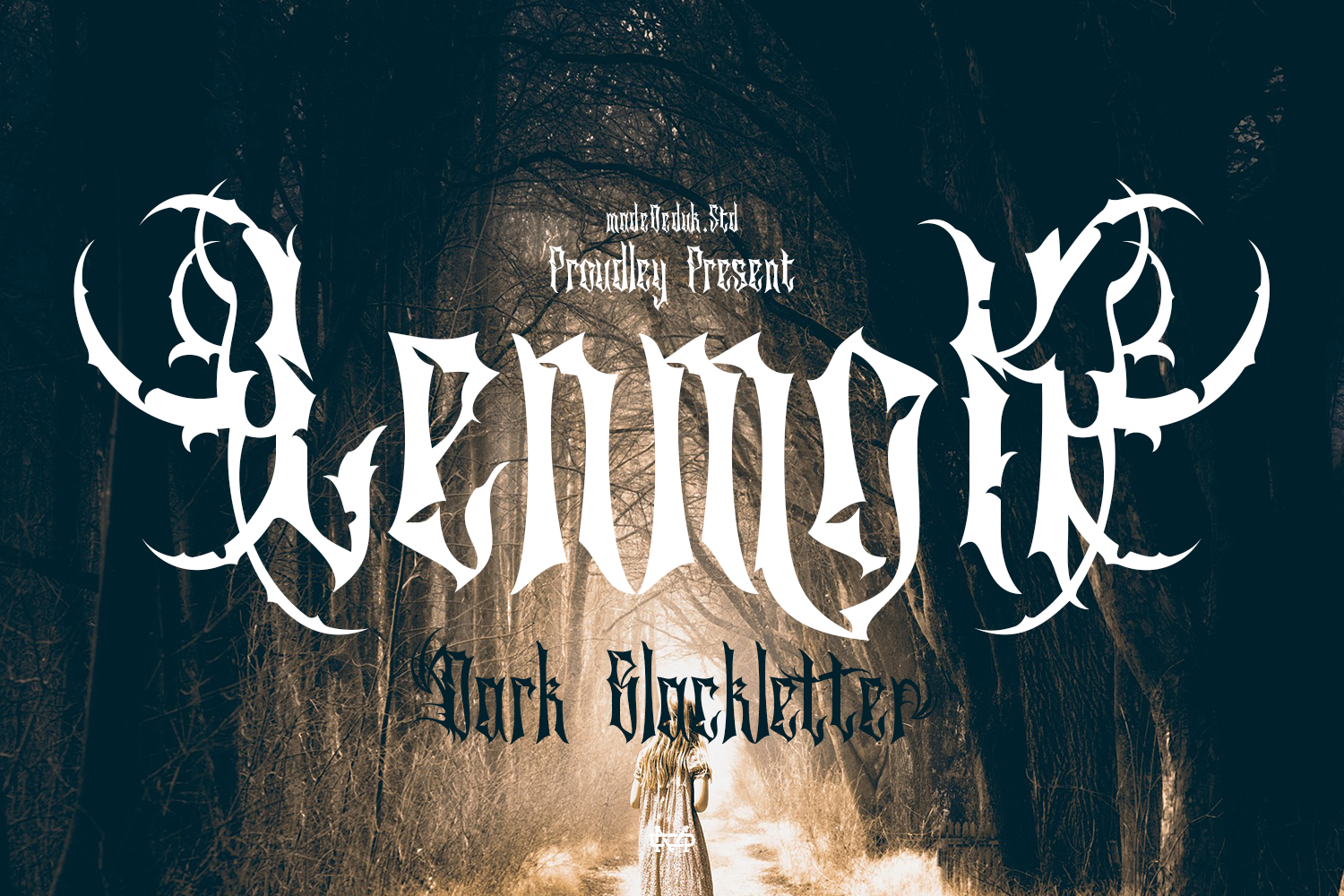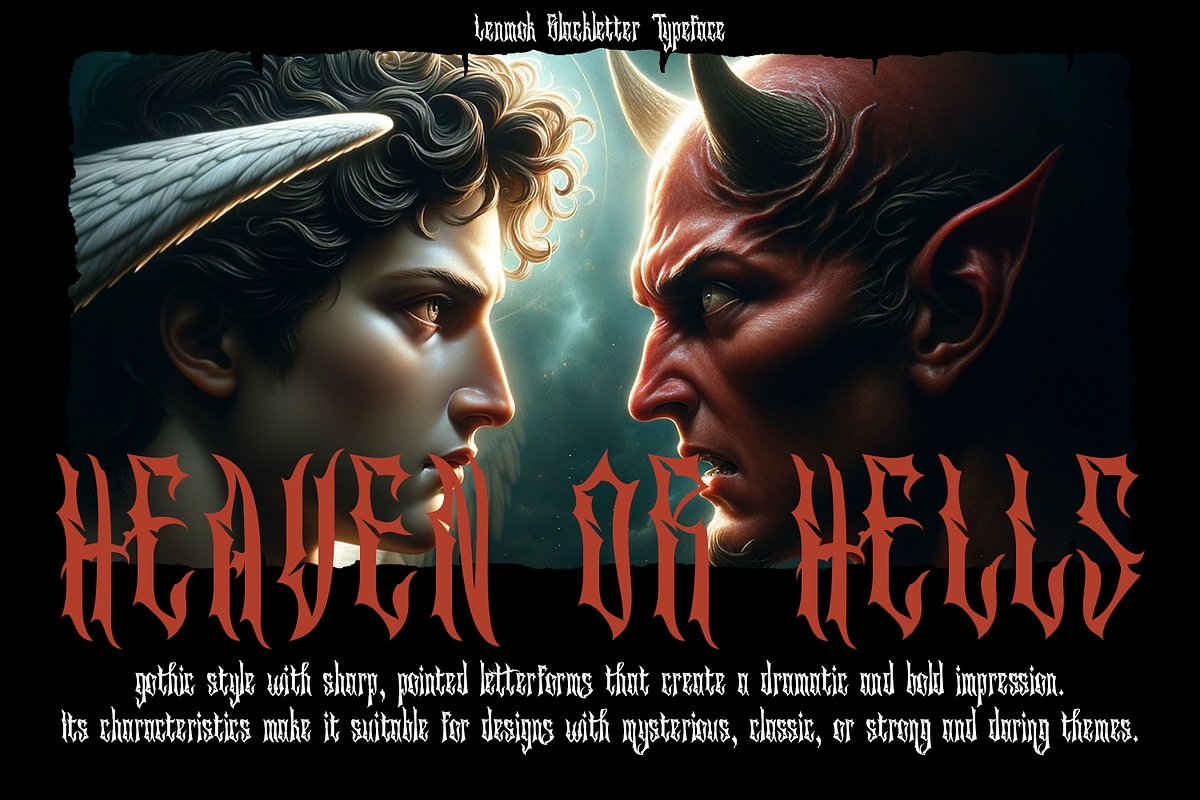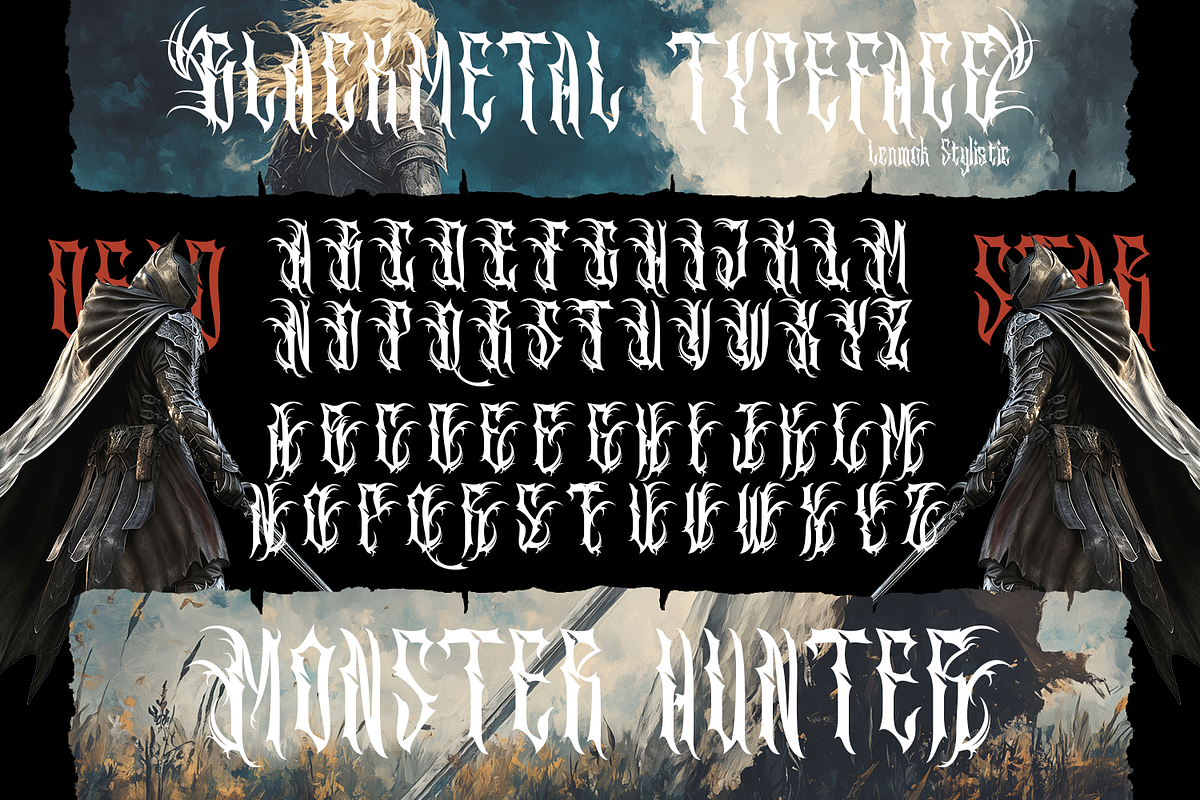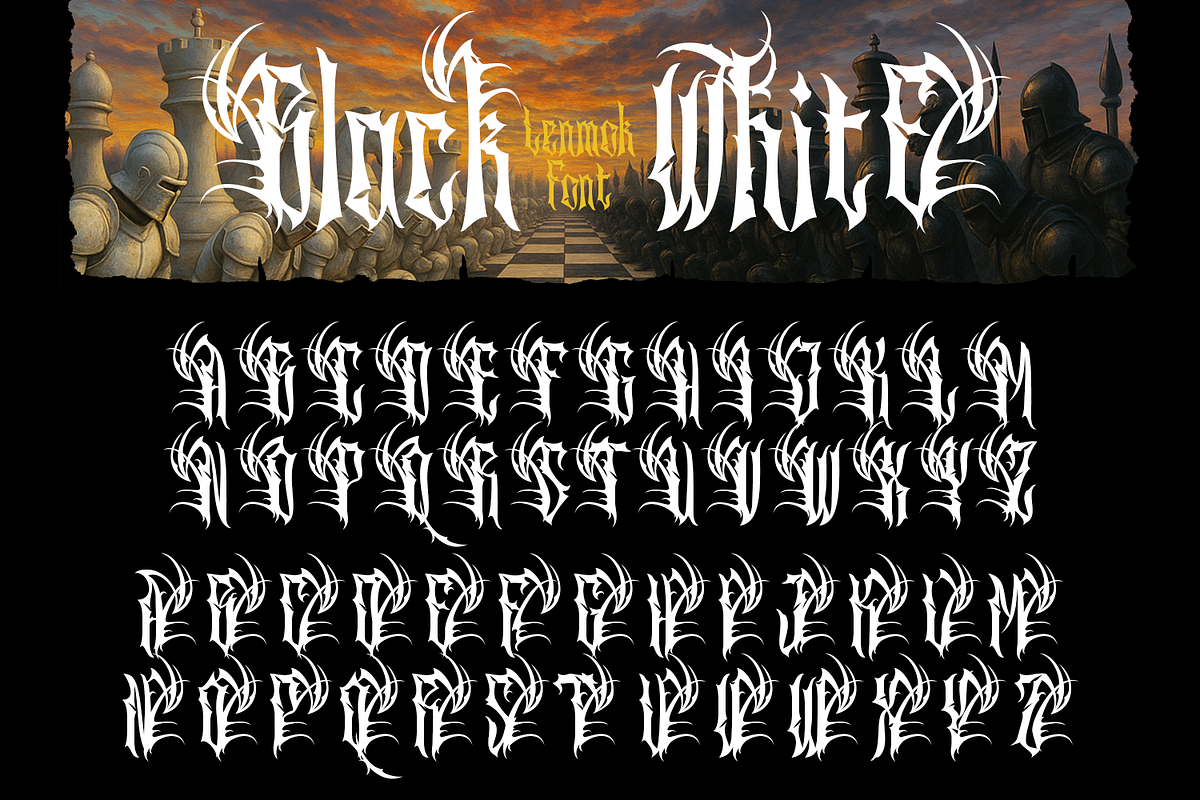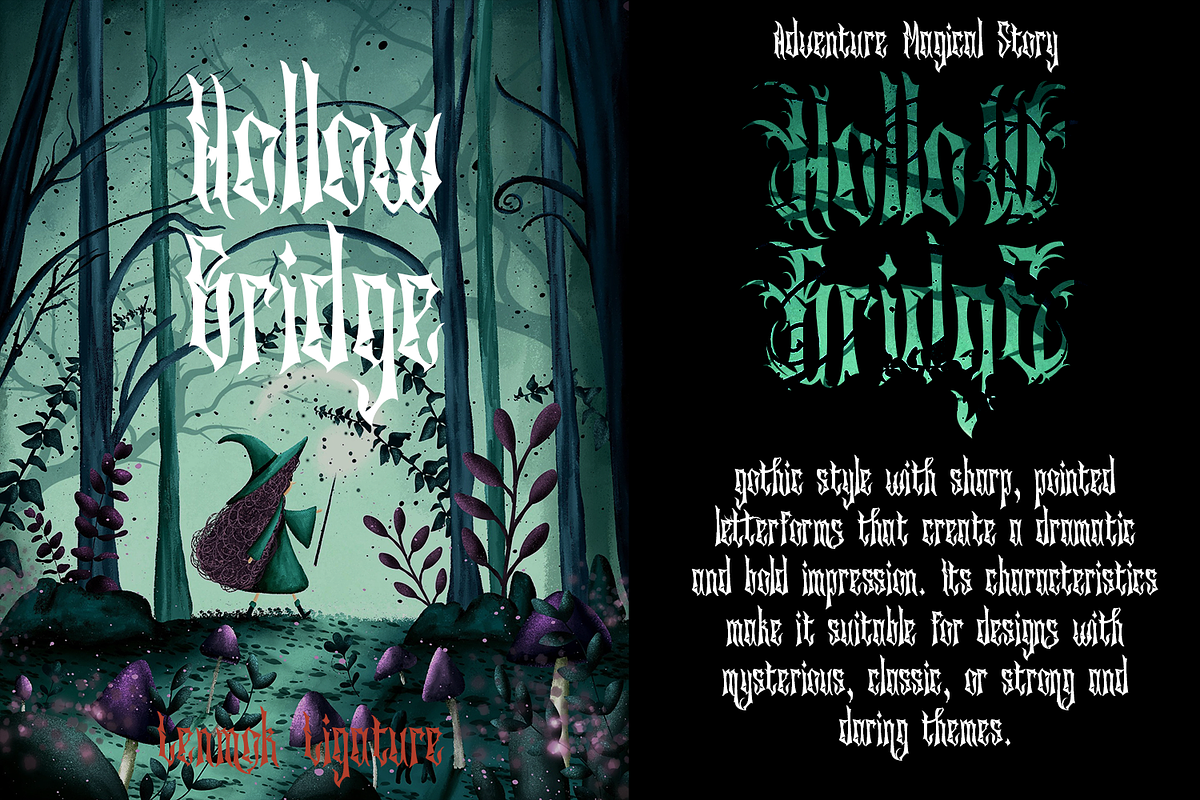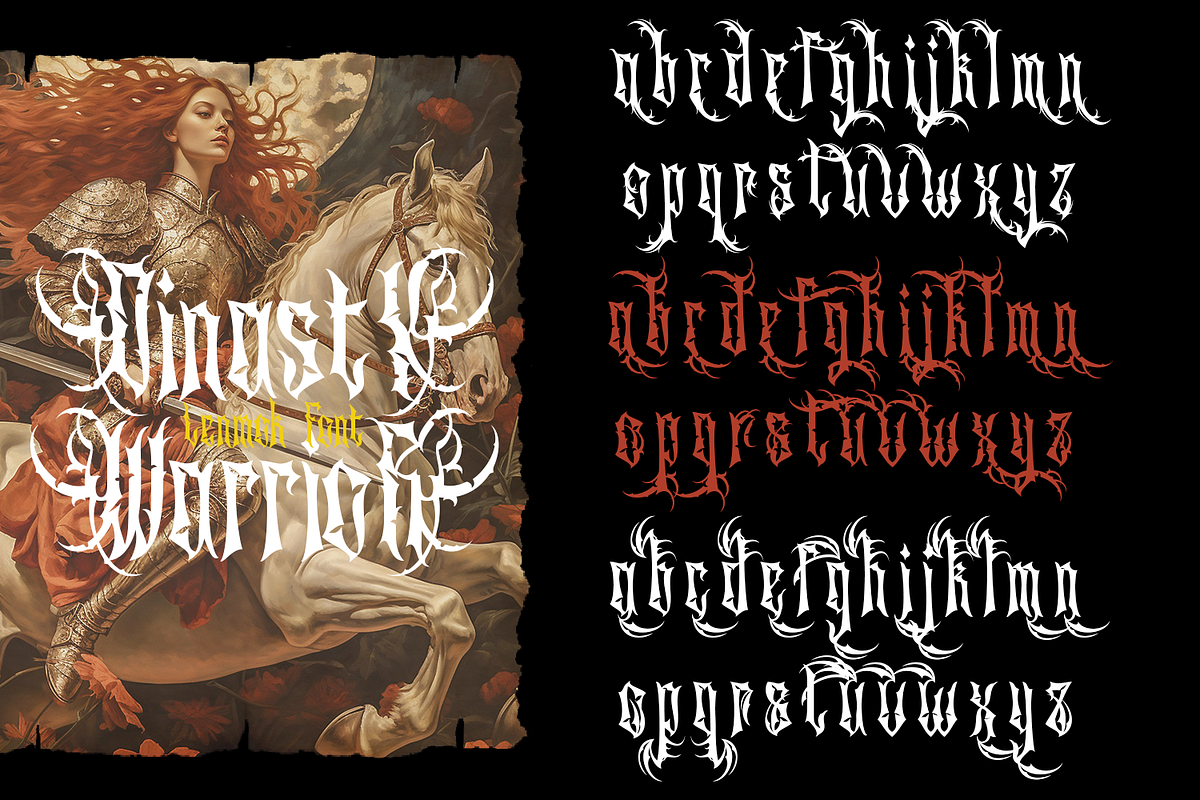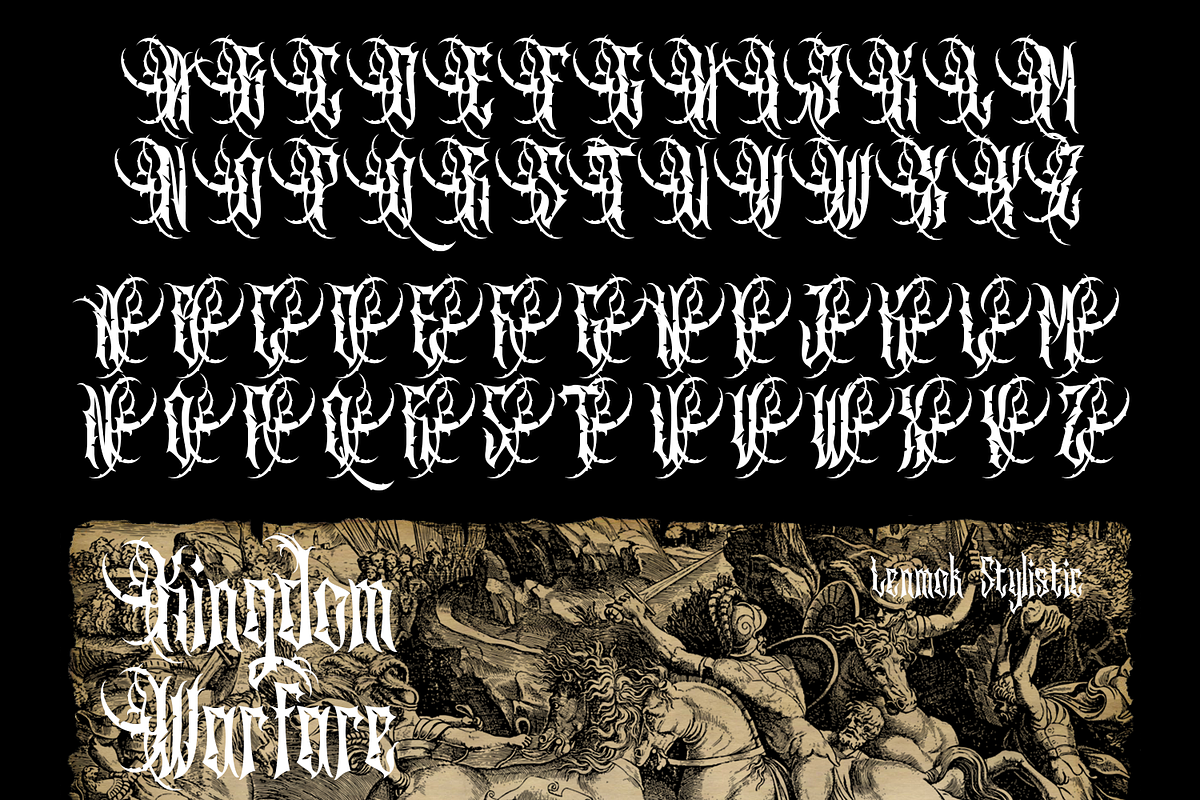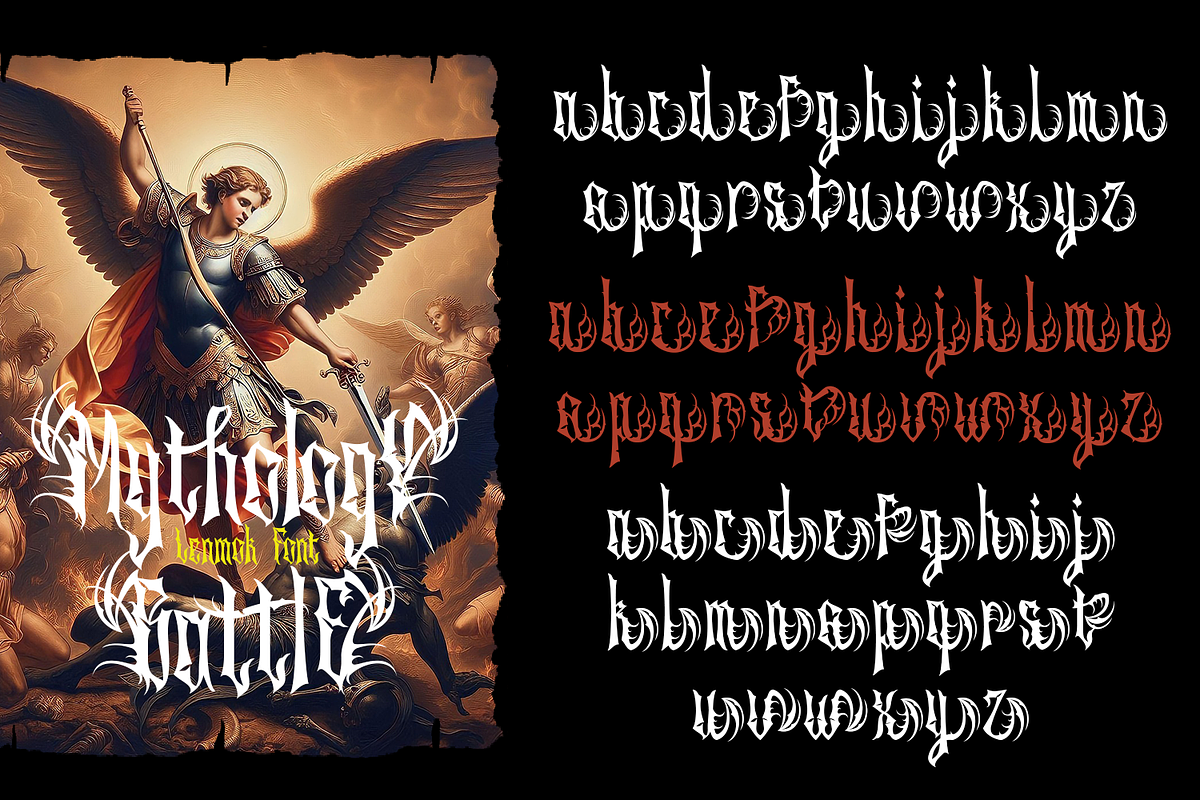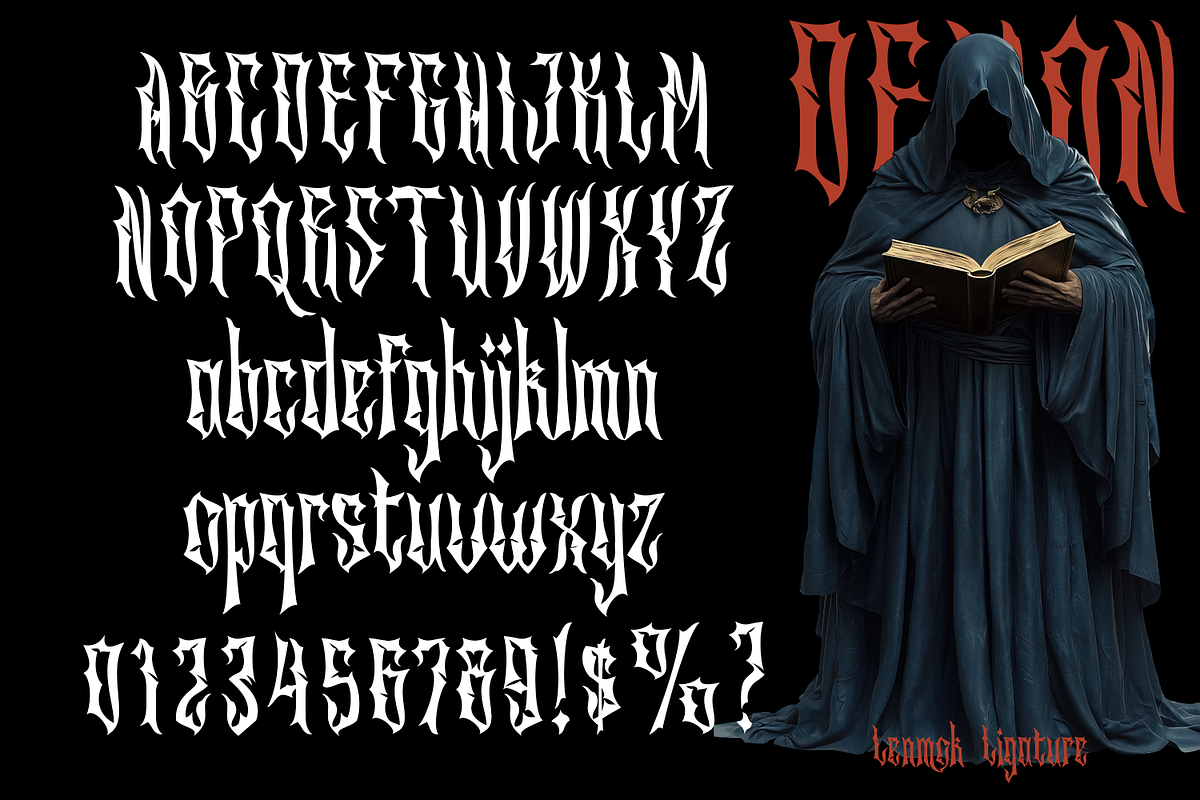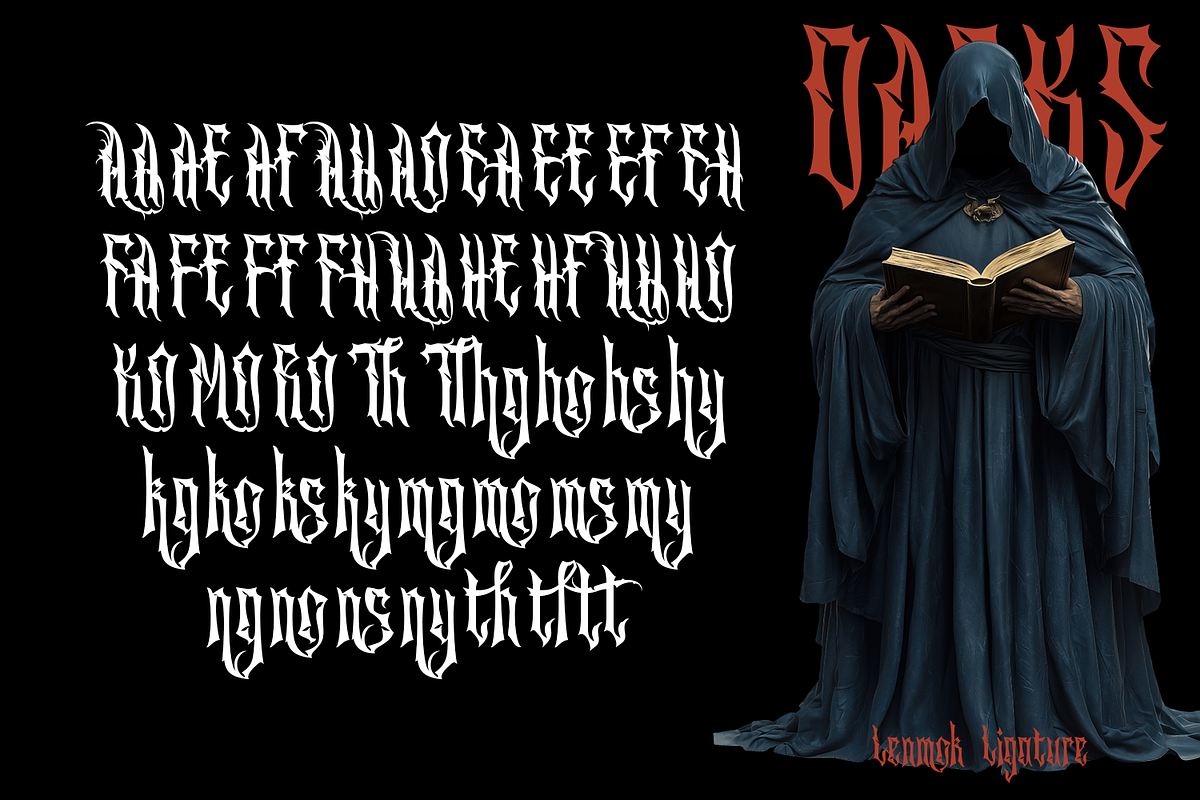
Lenmok - Blackletter Typeface
Introducing Lenmok Blackletter, a striking font that embodies a gothic style with sharp, pointed letterforms, creating a dramatic and bold impression. Its unique characteristics make it perfect for designs that evoke mystery, classic elegance, or a strong, daring aesthetic. This versatile typeface is ideal for advertising and enhances both digital content and printed materials, ensuring your message stands out with a captivating flair.